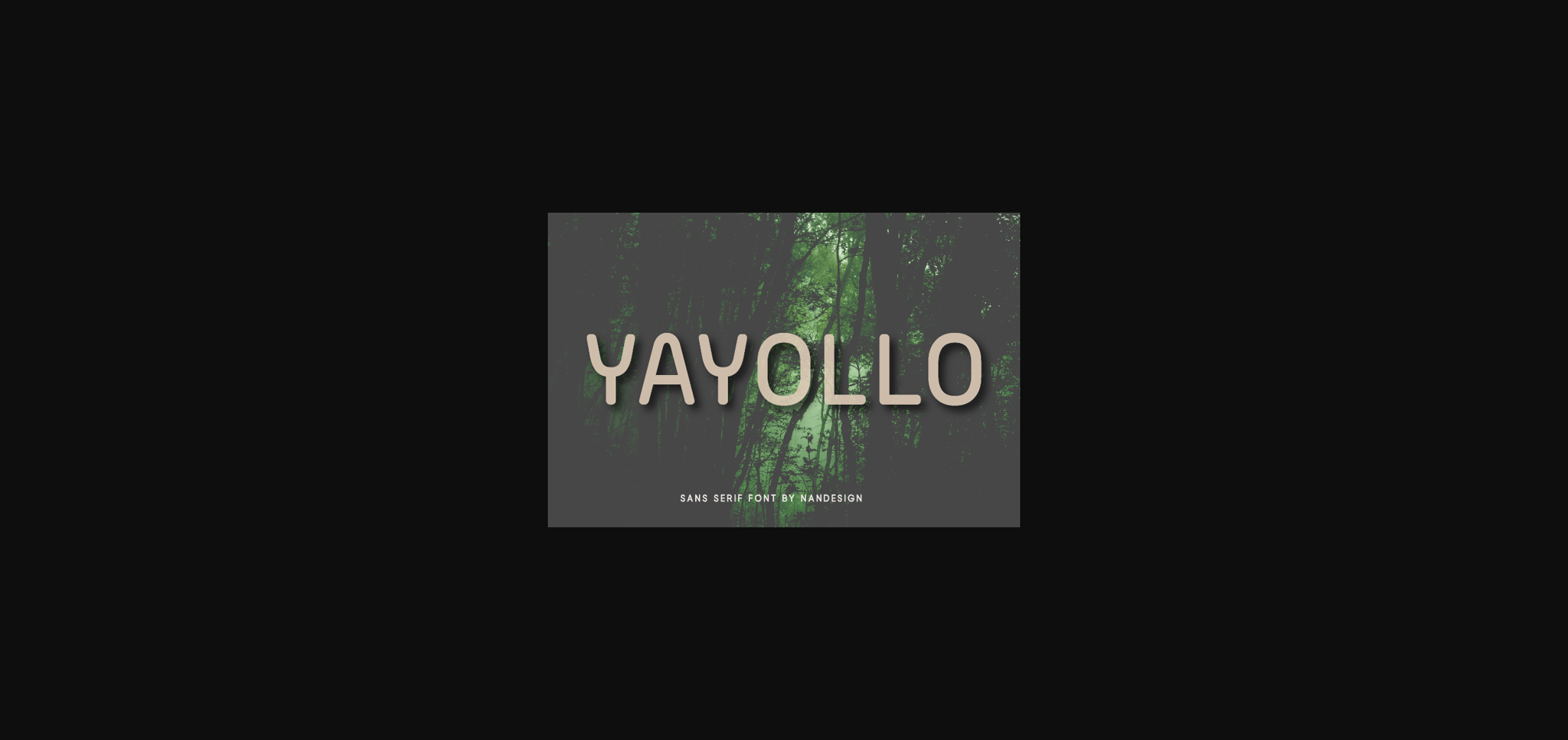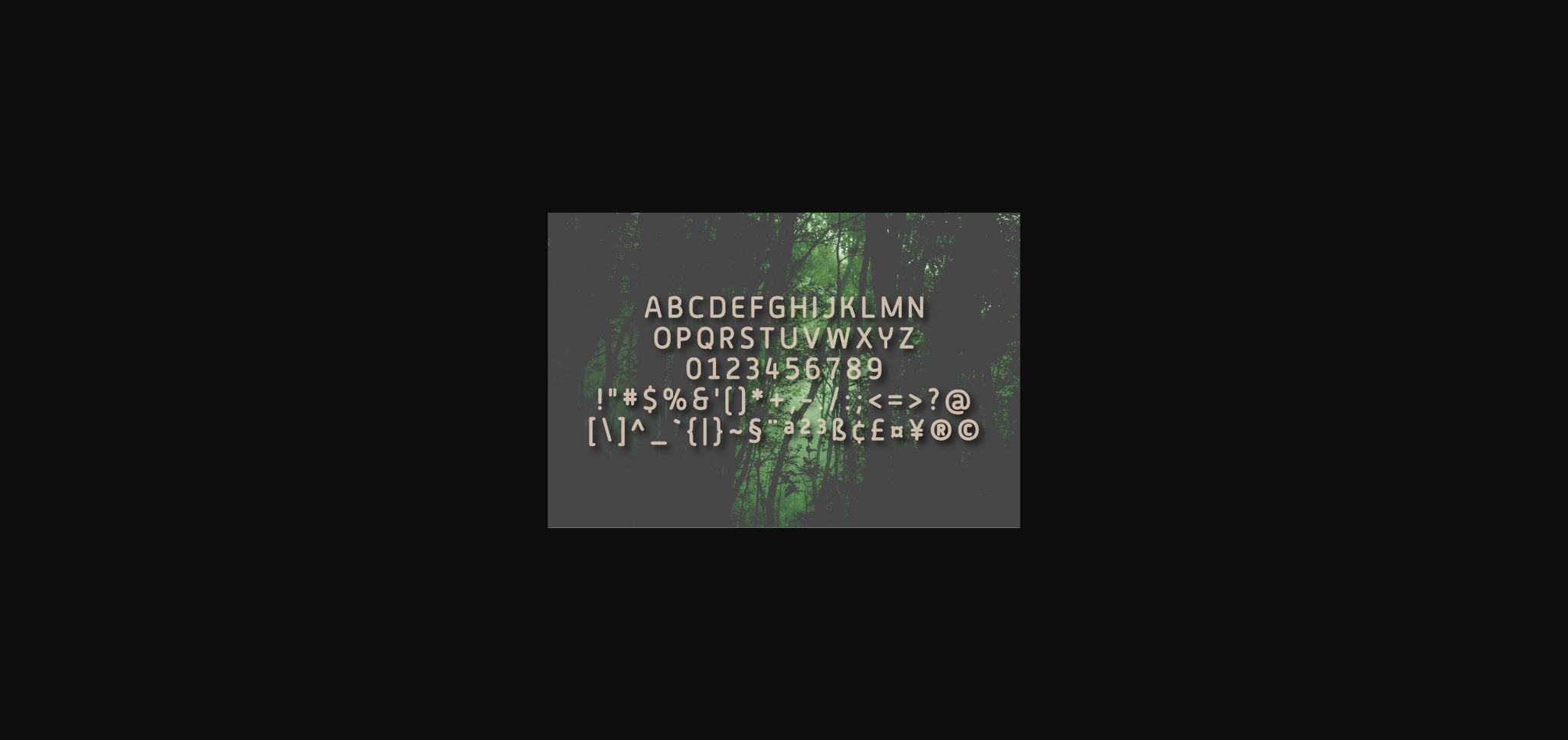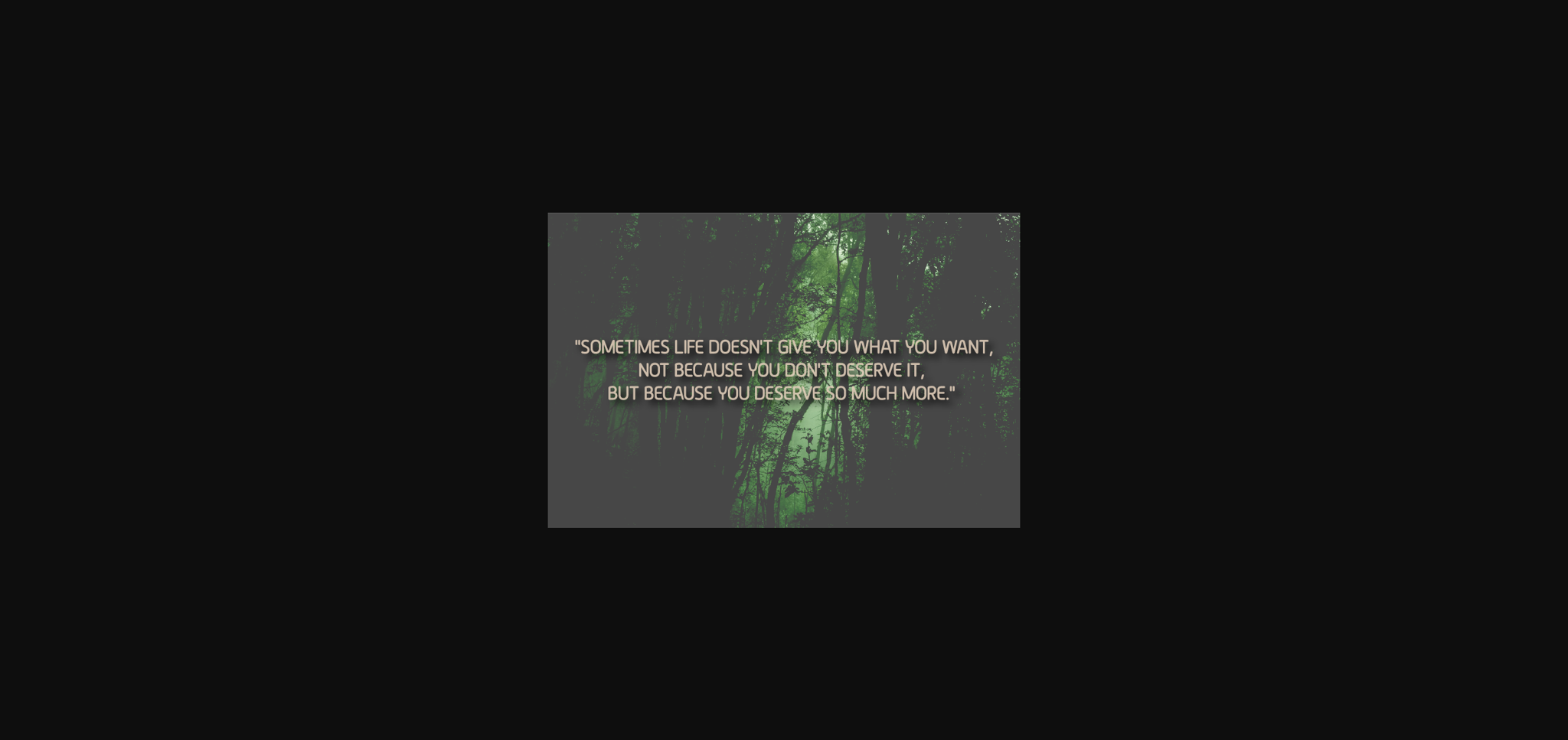
Yayollo is a simple and neat lettered sans serif font. It can easily be matched to an incredibly large set of projects, so add it to your creative ideas and notice how it makes them stand out!